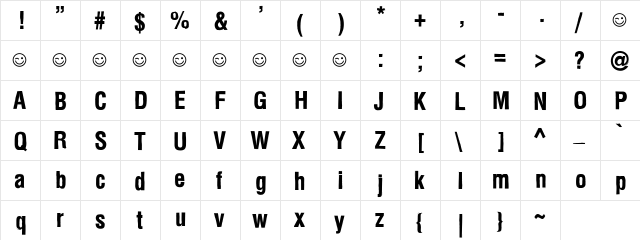
Newside FP Regular
Design Context for Newside FP Typeface
Newside FP takes a measured approach to typography — its balanced proportions and neutral character make it a reliable workhorse for both digital and print work.
Pro Tip: Use Newside FP in both headline and body roles to test its range before committing to a single application.